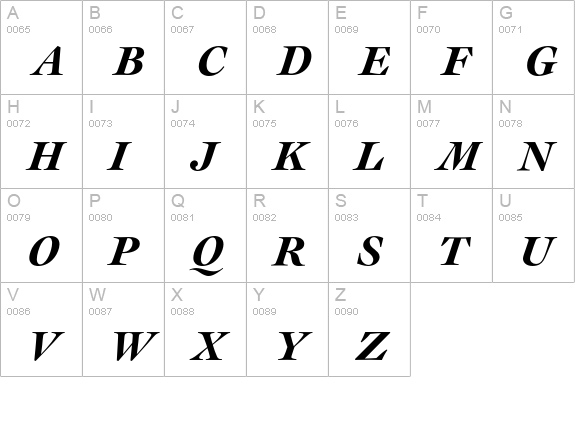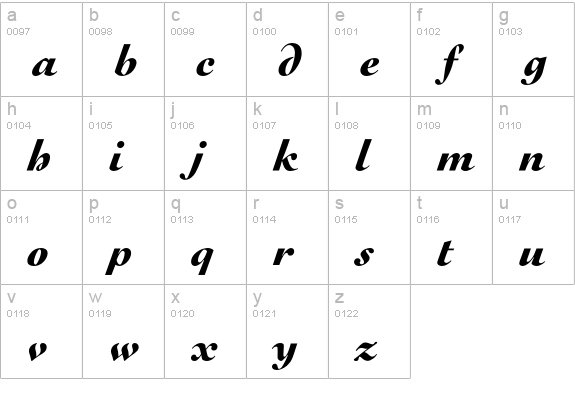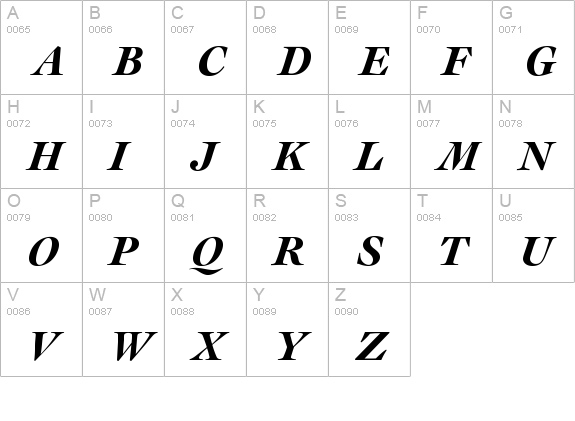
Le Cochin Bold Italic Font Details
Le Cochin Bold Italic is a strong, high-contrast, italic variant in the Le typeface family \xE2\x80\x94 well suited to headlines, attention-grabbing titles, and strong calls-to-action.
Le Cochin Bold Italic font is a stunning display of elegance and sophistication. Its strong and commanding presence makes it the perfect choice for headlines, titles, and logos that demand attention. The bold and italic combination creates a sense of drama and adds a touch of uniqueness to any design. This font exudes a timeless charm with its classic and refined letterforms. The strokes are meticulously crafted, with each curve and angle thoughtfully designed to create a harmonious balance. Le Cochin Bold Italic font effortlessly combines tradition with a contemporary twist, making it suitable for both modern and vintage-inspired designs. One of the most remarkable features of Le Cochin Bold Italic font is its versatility. It can adapt seamlessly to various design styles, whether it's for digital or print media. From editorial layouts to advertising campaigns, this font will elevate any project to new heights. And the best part? Le Cochin Bold Italic font is free! You can easily download it at FontsMarket.com. This means that you can enhance your designs without any additional cost. It's a font that not only offers exceptional quality but also accessibility to designers of all skill levels. In summary, Le Cochin Bold Italic font is a timeless and versatile typeface that brings elegance and sophistication to any design project. Its bold and italic combination creates a captivating visual impact, while its free availability makes it easily accessible to designers worldwide. Download Le Cochin Bold Italic font at FontsMarket.com and let your creativity soar.